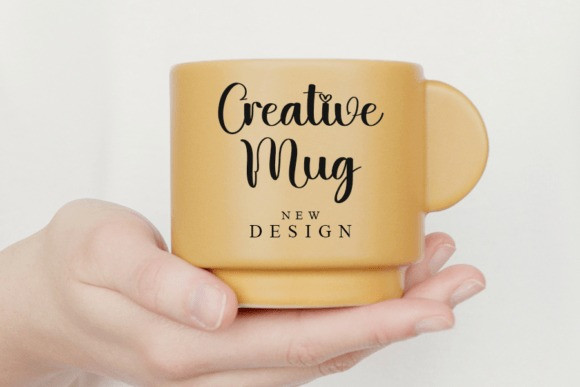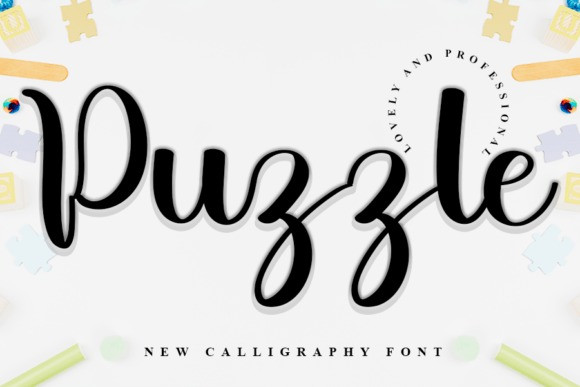
Puzzle Font
Puzzle Font is a beautiful and refined handwritten font. Classy and modern, it is perfect for logos, branding, invitations, stationery, wedding designs, social media posts, and much more!